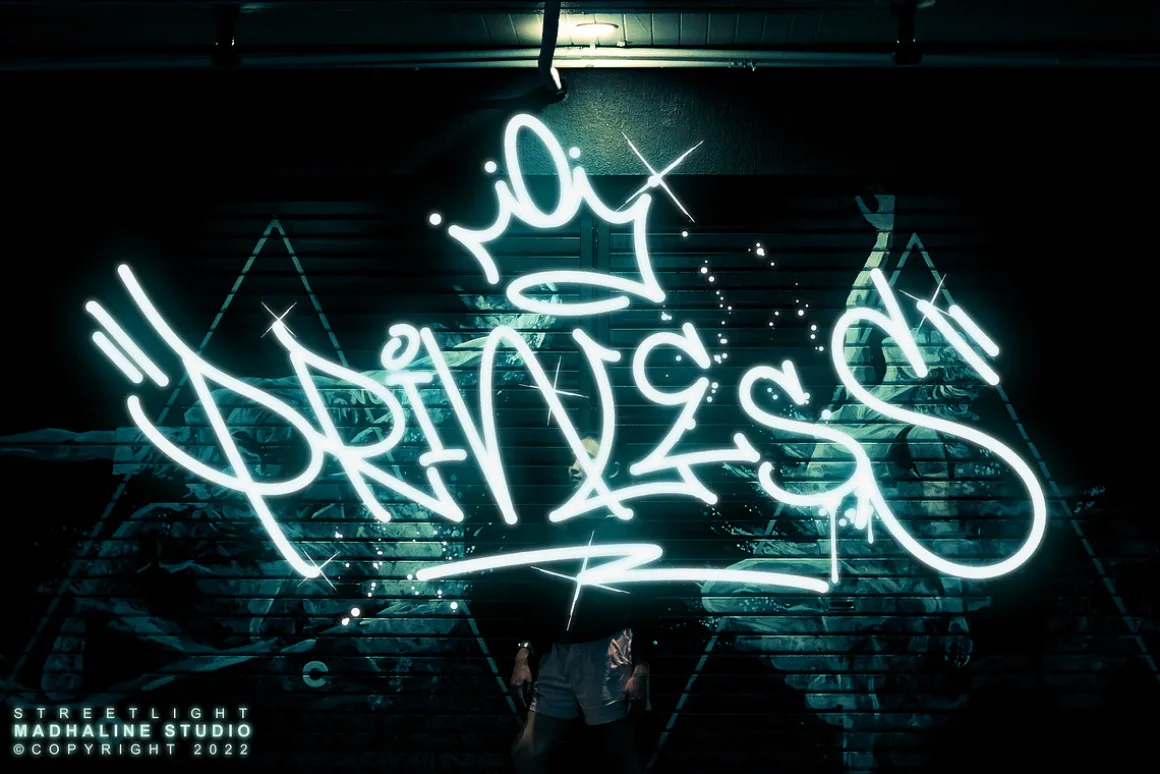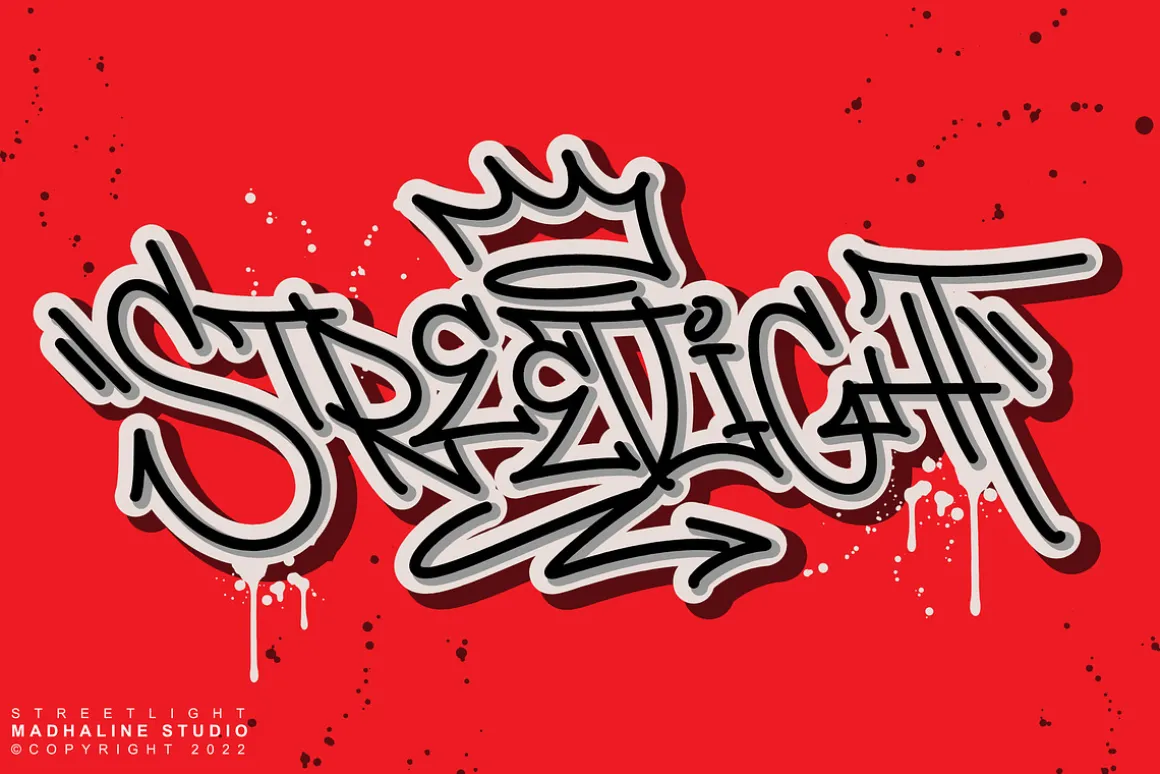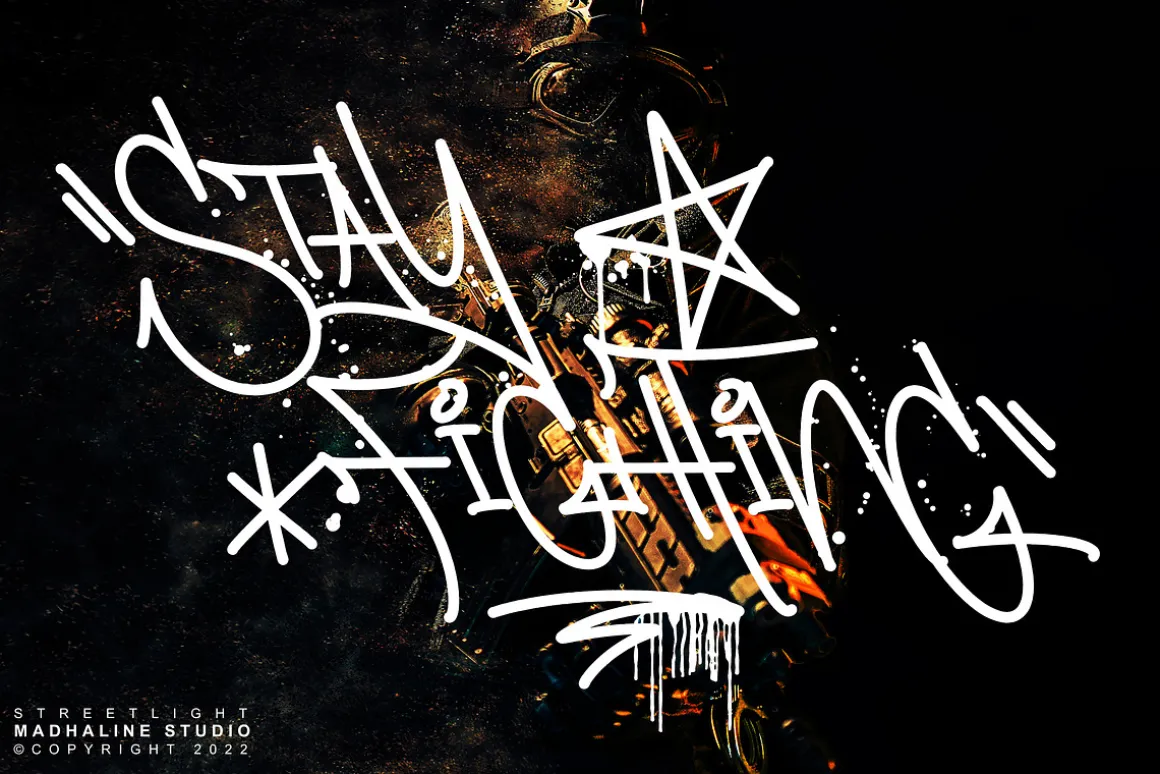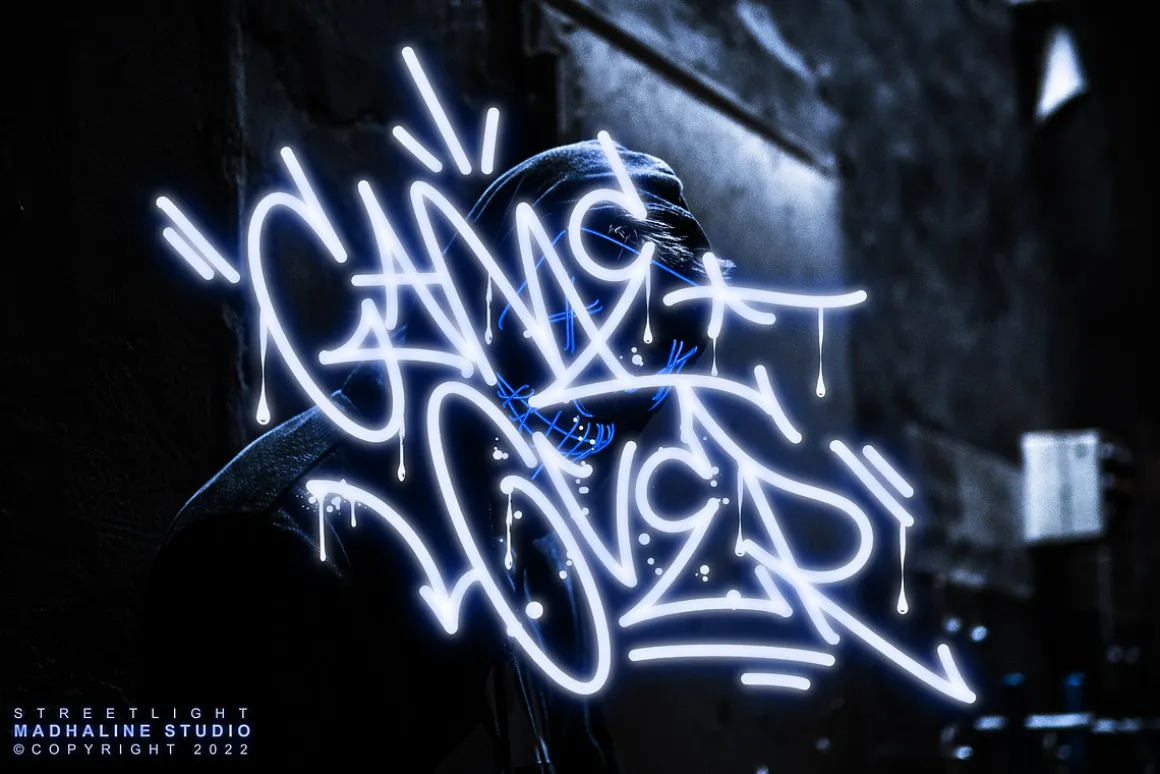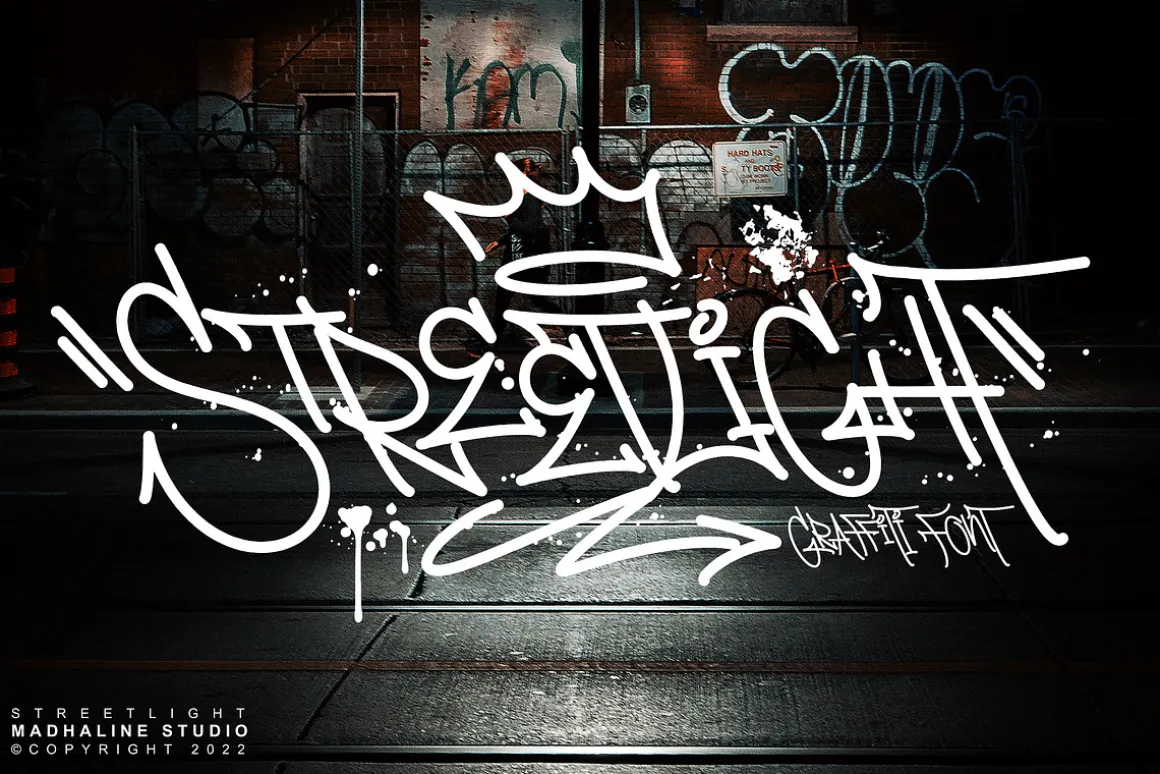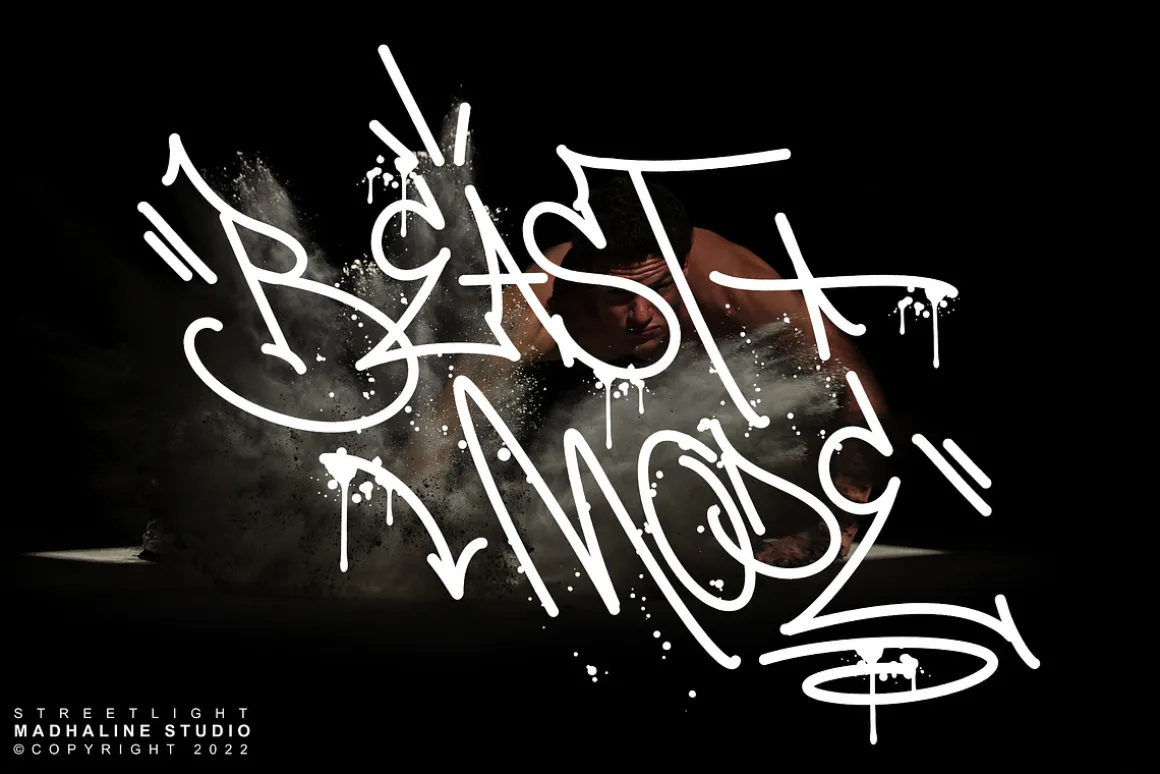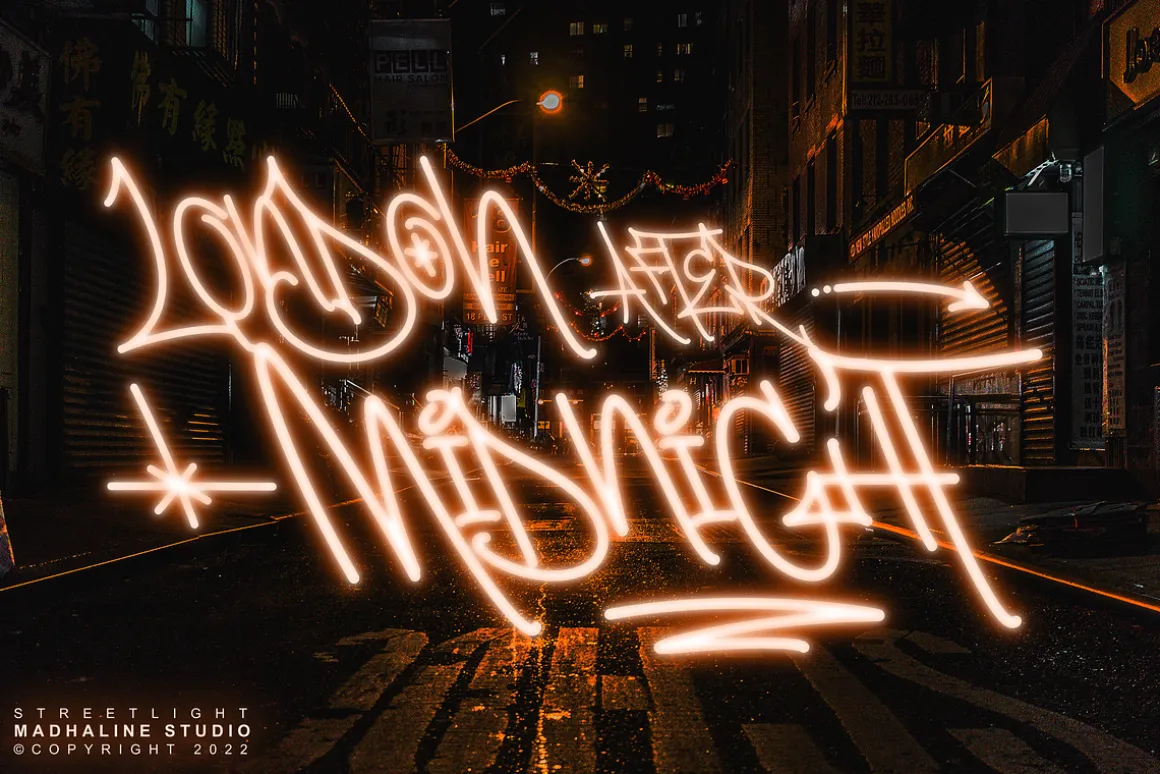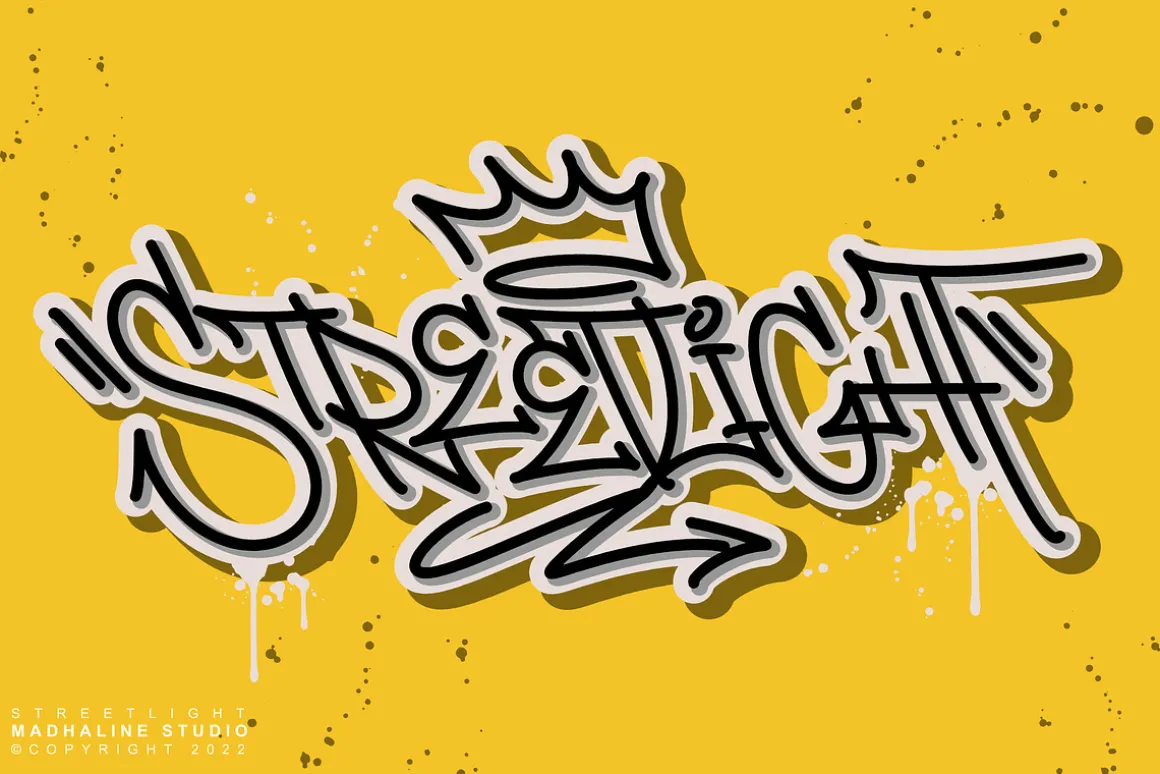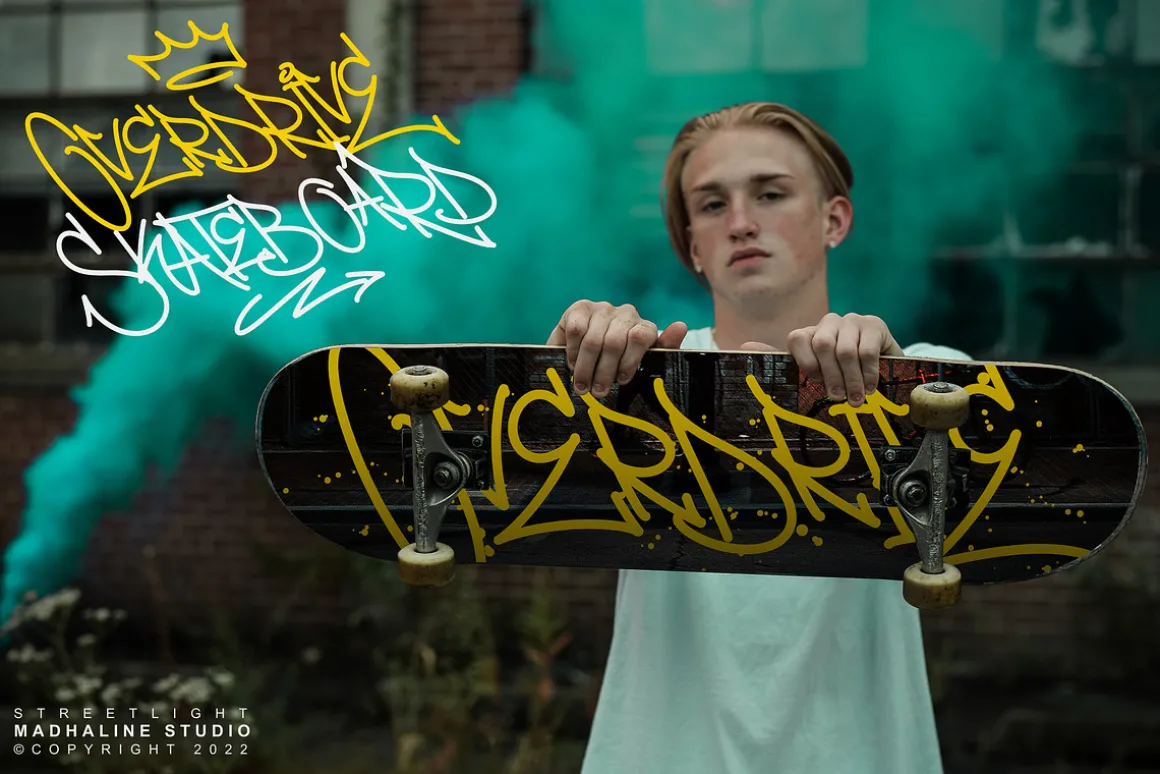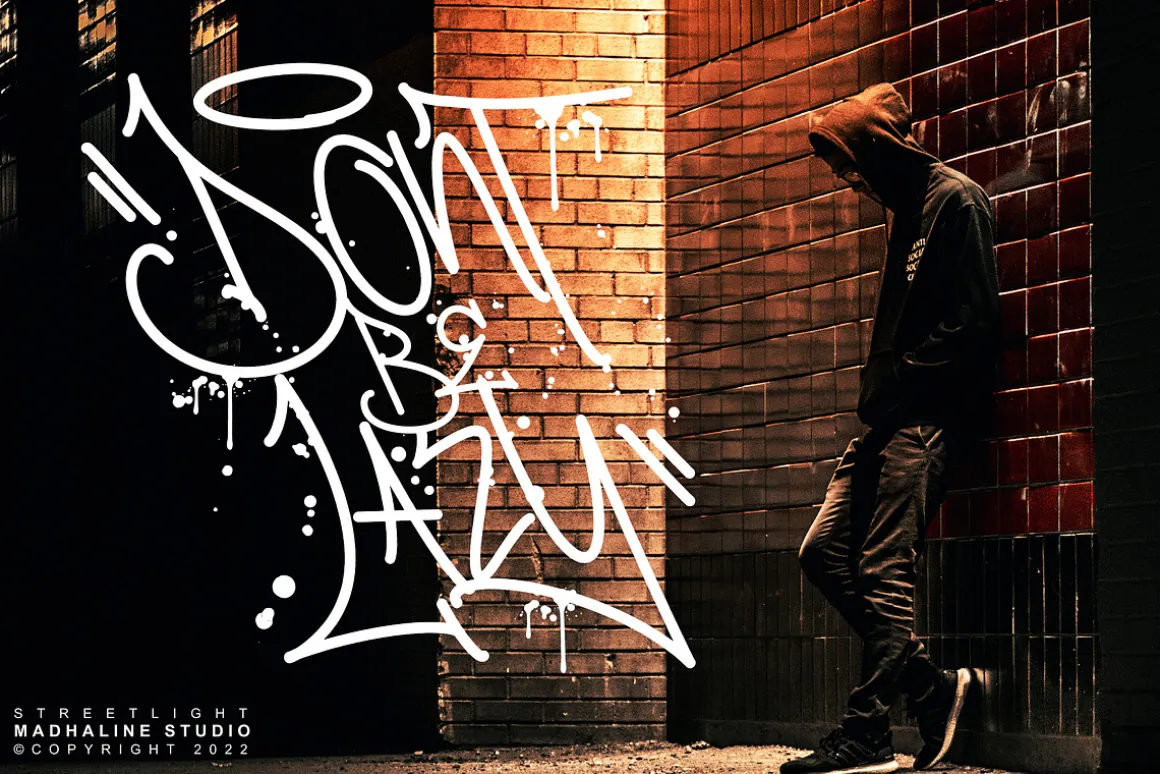
Streetlight is a graffiti font with a monoline style that is carefully written and adds a unique graffiti style. This font has a cool font arrangement that makes it look like real graffiti writing.
- Streetlight~ A hand-made, all characters brush font which has a complete set of A-z characters.